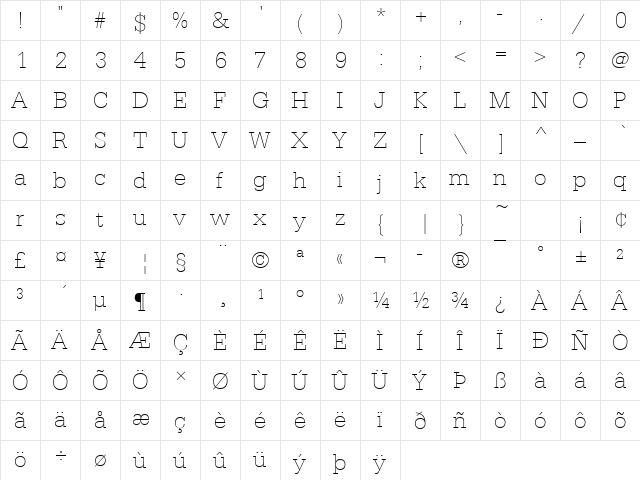
URWSarandibTThi Regular
Design Context for URWSarandibTThi Typeface
URWSarandibTThi takes a measured approach to typography — its balanced proportions and neutral character make it a reliable workhorse for both digital and print work.